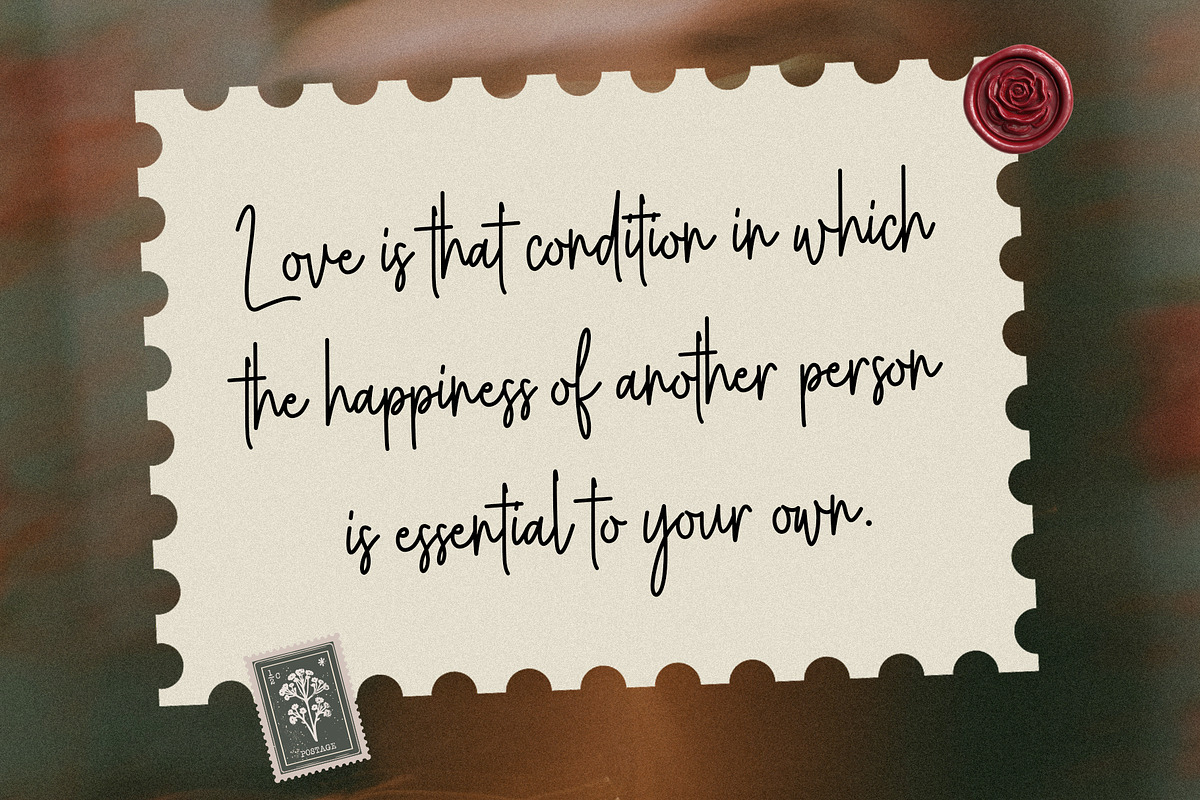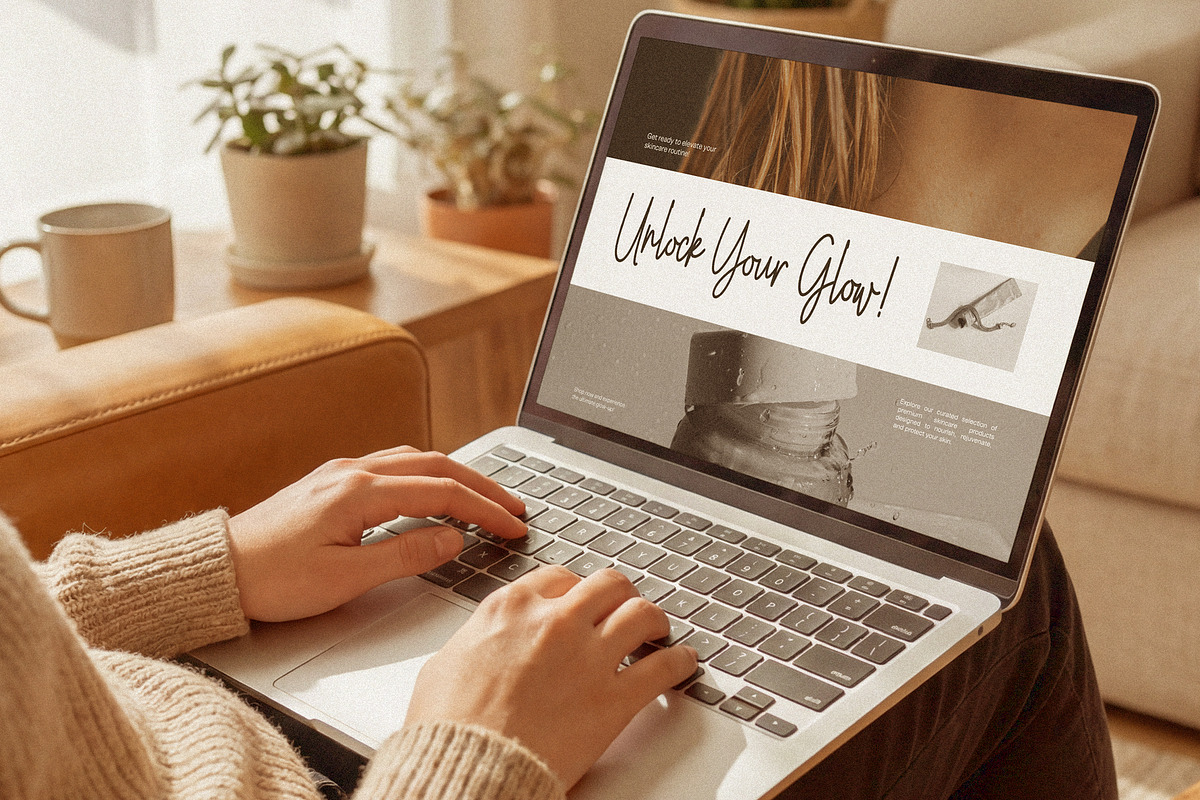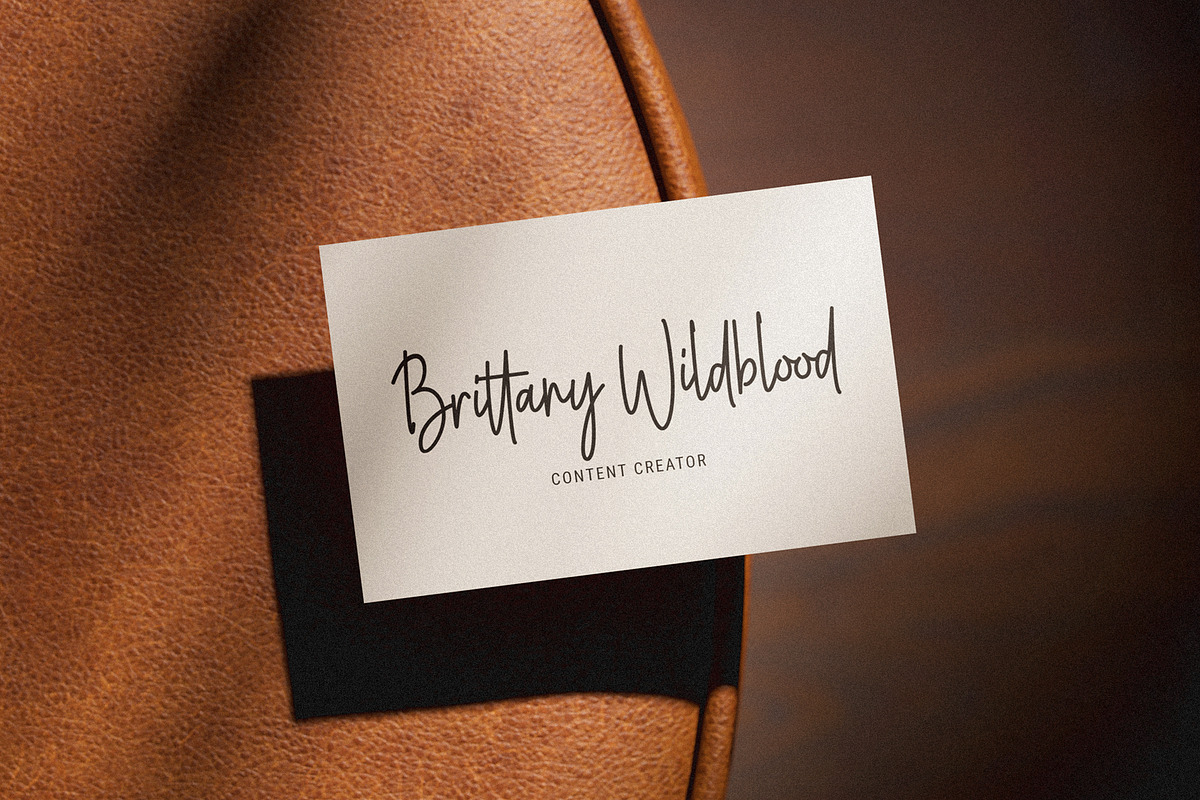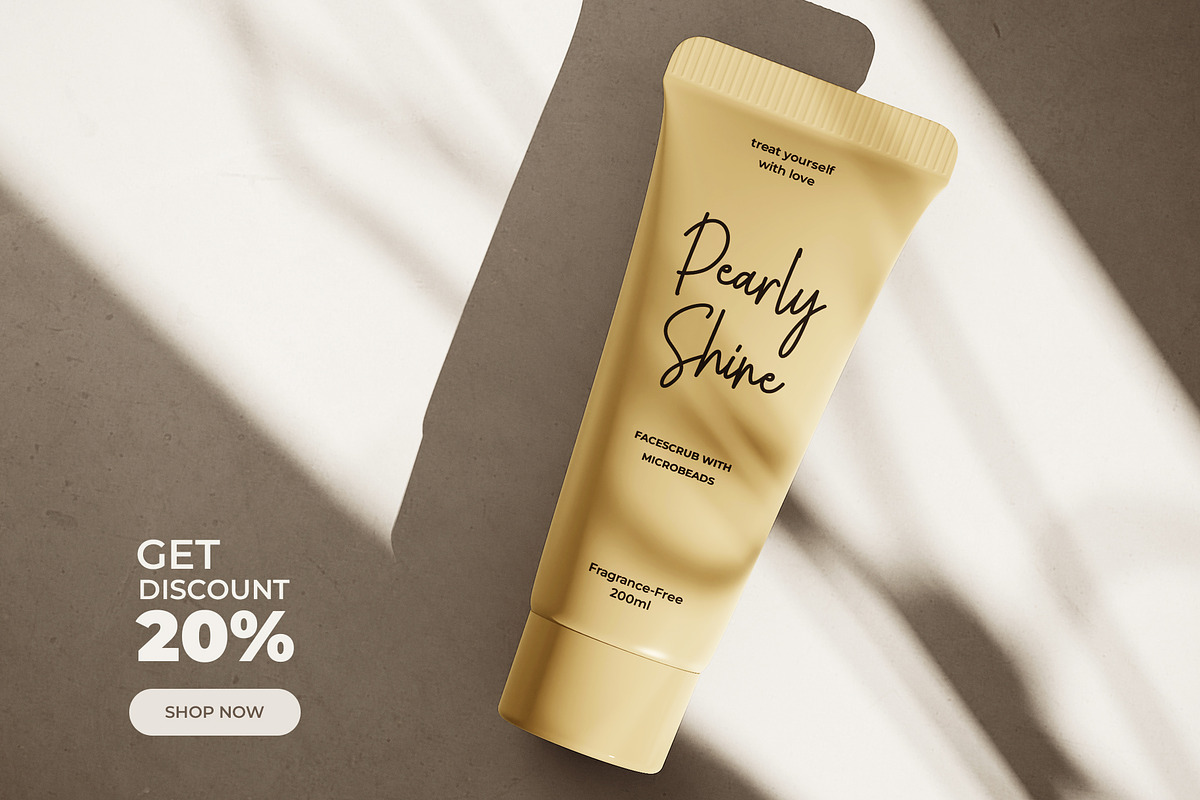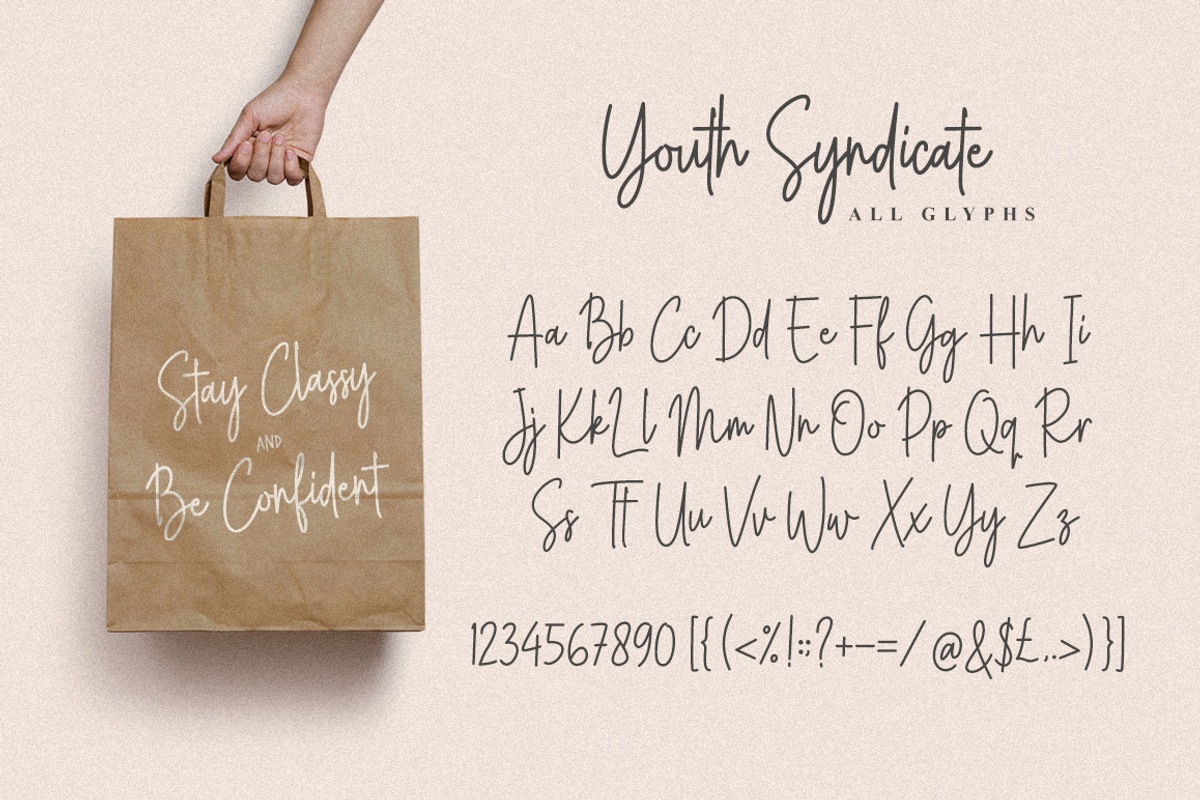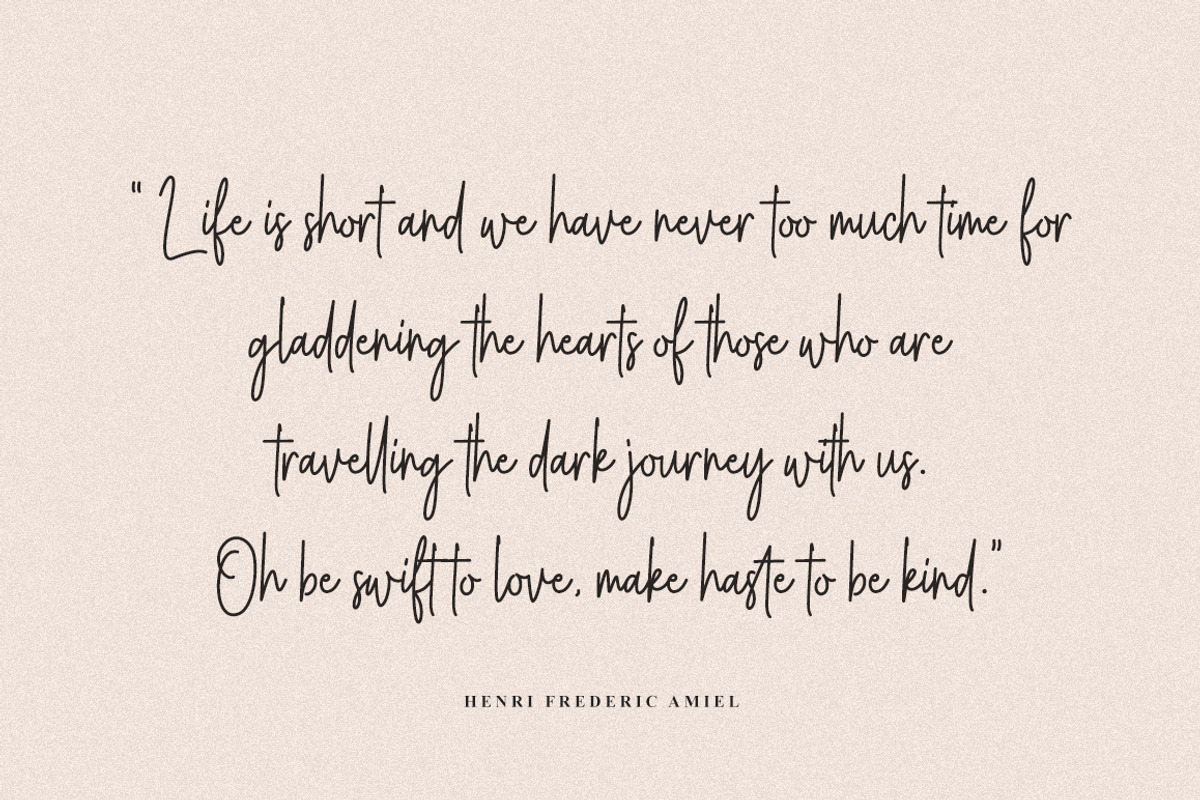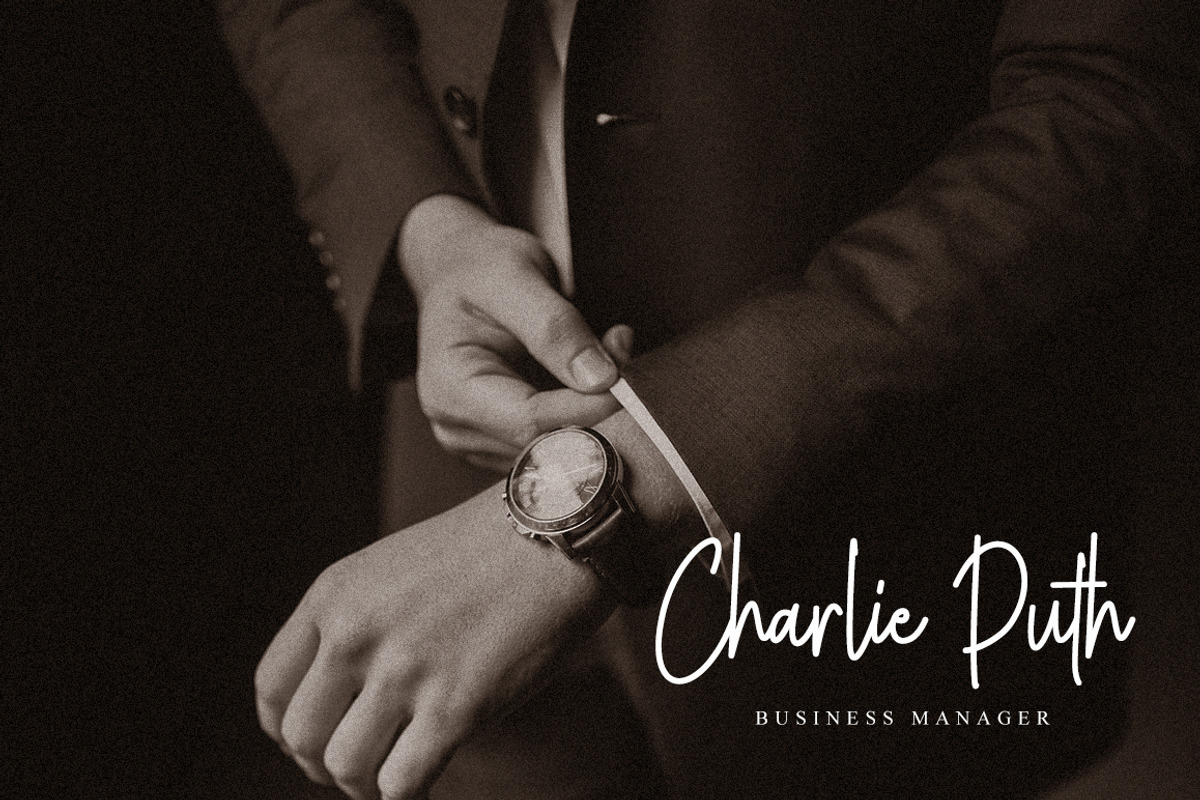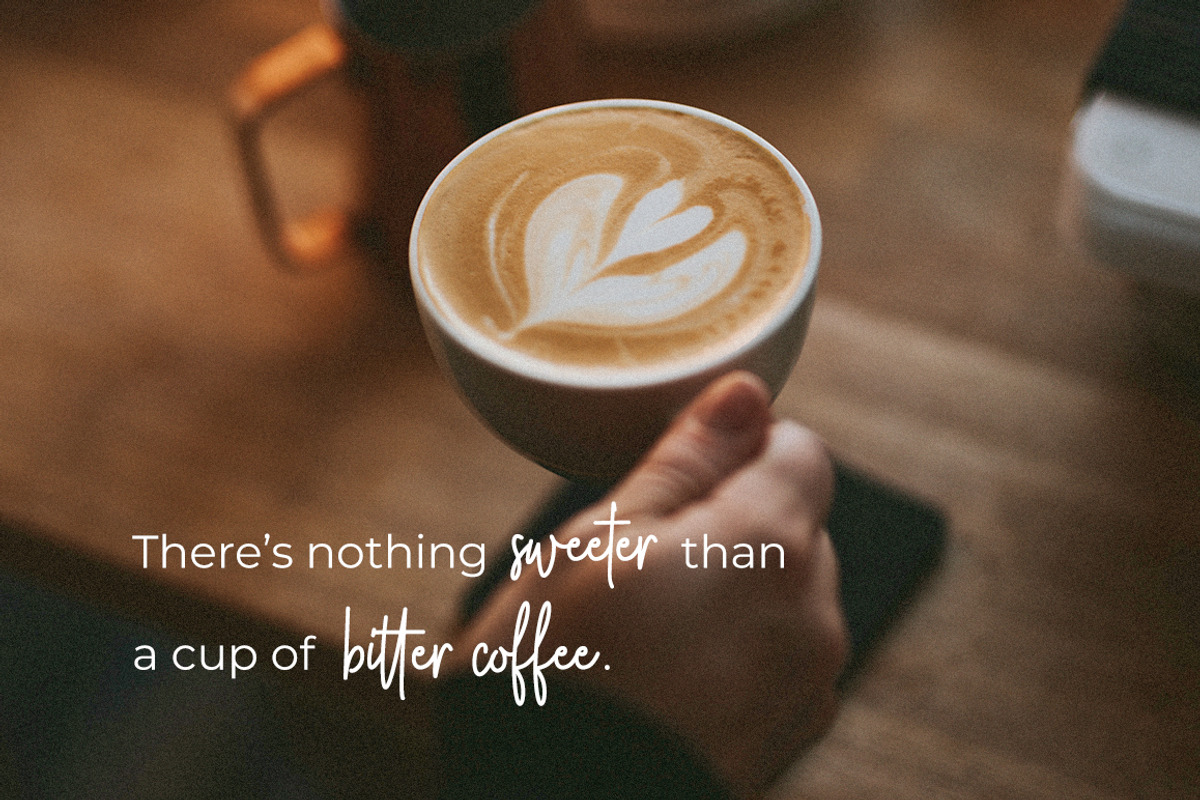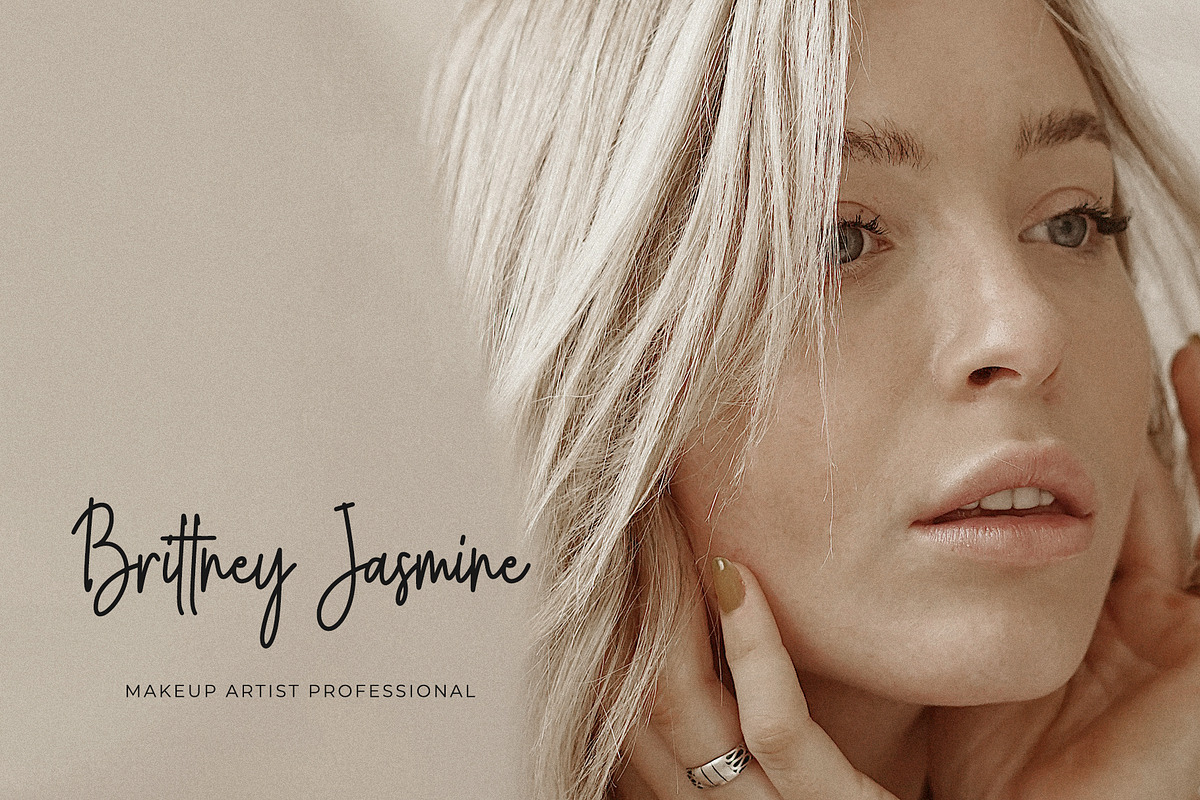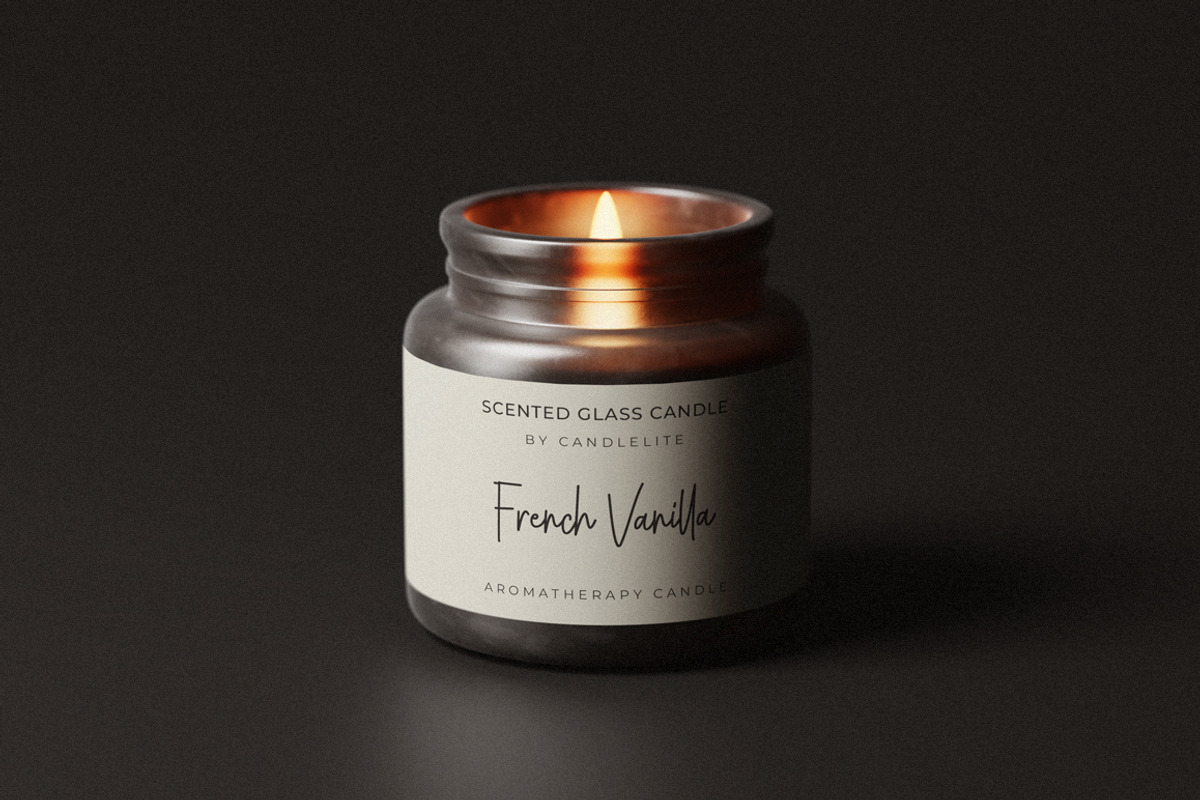
Youth Syndicate Signature Font
Youth Syndicate Signature Script Font For Branding
Youth Syndicate is an expressive signature script font designed to bring a personal, youthful, and effortlessly stylish character to your creative projects. With its natural handwritten flow, sweeping strokes, and distinctive letterforms, Youth Syndicate creates the authentic feel of a personal signature while maintaining a polished and professional appearance.
Perfect for branding, logos, fashion labels, apparel, posters, social media graphics, packaging, editorial designs, and personal branding, this script font adds personality and a handcrafted touch wherever it is used. Its dynamic strokes make it especially effective for large headlines, brand names, quotes, and statement typography.
Youth Syndicate also features multilingual support and ligatures, giving you greater flexibility to create unique and beautifully connected typographic compositions. Whether you're building a modern lifestyle brand or creating eye-catching promotional artwork, Youth Syndicate is made to stand out.